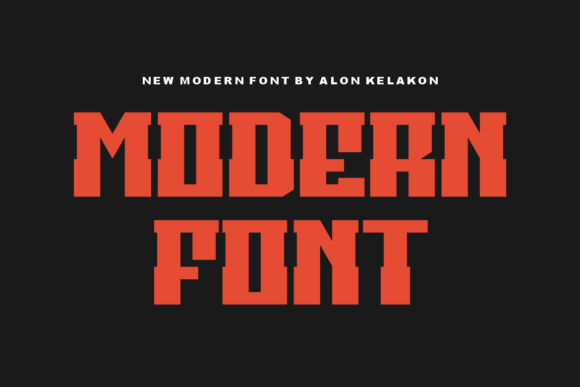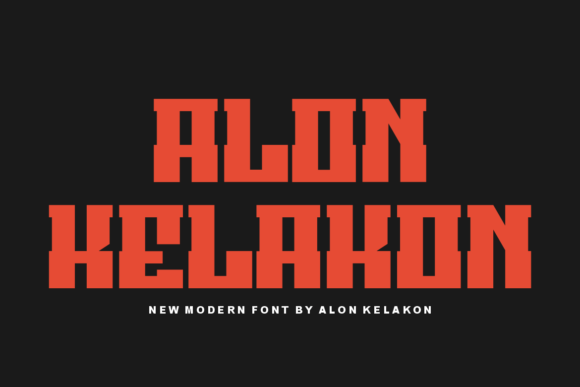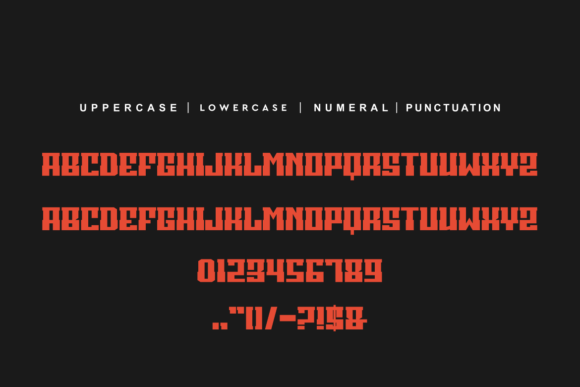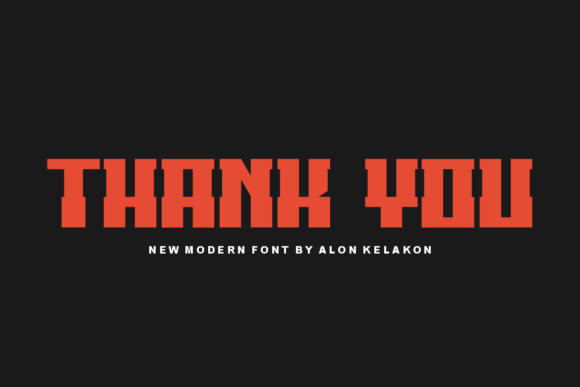
Introduction to Norvesa Font
Have you ever been in the midst of a creative project, pouring your heart and soul into a design, only to be held back by the perfect font? That moment of frustration is a familiar feeling for many designers, but what if you could find the perfect font to elevate your work? Look no further than the Norvesa Font, a unique slab serif font designed to take your designs to the next level.
With its high-quality design and transparent background, the Norvesa Font is the perfect resource for designers looking to add a touch of sophistication to their work. Whether you’re creating labels, logos, or album covers, this versatile font is ready to use and can be downloaded for free, making it an invaluable addition to any design project.
Key Features of Norvesa Font
- Unique, modern font style with a transparent background, suitable for various design applications.
- Includes a large character set, covering multiple languages and providing versatility for diverse design needs.
- Designed with a high resolution (300 DPI) for crisp and clear typography in various print and digital applications.
- Perfect for use in creative projects, such as logo design, branding, and advertising, where a modern and stylish font is required.
Honest Review: Norvesa Font
As a designer, I’m always on the lookout for high-quality design resources to elevate my creative projects. The Norvesa Font caught my eye with its sleek, modern aesthetic and transparent background, making it perfect for a variety of design applications.
Here’s what I like about the Norvesa Font:
- ✨ Elegant and sophisticated feel, making it ideal for luxury brands or high-end products.
- ✨ Versatile and suitable for a range of creative projects, from logos to typography-based art.
- ✨ The transparent background allows for seamless integration with other design elements.
- ⚠️ Limited character set and font variations, which may not be suitable for large-scale or complex projects.
Overall, I’m impressed with the Norvesa Font’s design and versatility. While it may not be the most comprehensive font set, it’s a great resource for designers looking to add a touch of sophistication to their creative projects. With a free download available, it’s definitely worth checking out.
For the best results, use Norvesa Font on a transparent background to give your design a clean and modern look. You can also experiment with different font sizes and styles to create visual interest. With its high-quality design and free download, Norvesa Font is a great resource for any creative project.
Norvesa Font is commonly used in logo design, branding, and marketing materials. Its clean and modern design makes it perfect for creating professional-looking designs. You can also use Norvesa Font in social media graphics, presentations, and documents to add a touch of sophistication.